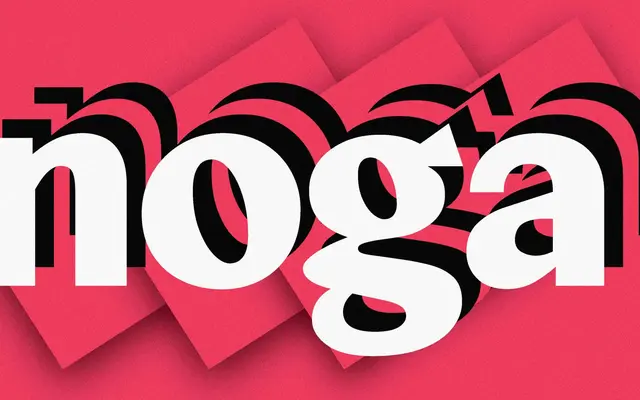
A ten-style humanist sans from Hot Type, spanning Light to Black with matching italics for each weight.
Ten styles covering five weights from Light to Black, each paired with an italic, make Noga a practical choice for editorial and branding work that needs range. The specimen shows the family holding up well across display and body sizes, with readable proportions at small text settings. No condensed cuts are offered, keeping the family tight and focused.
The letterforms shown across the specimen suggest a humanist sans construction with warm, readable proportions across a range of weights. No explicit classification is given by the foundry, but the overall character and text performance point clearly to a humanist sans-serif tradition.